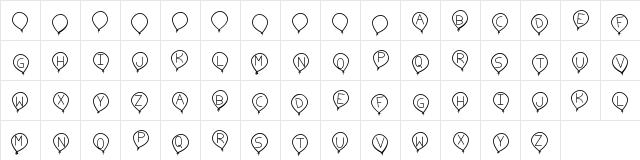
birthday balon tfb Regular
| Designer | kaiser zhar khan |
Design Context for birthday balon tfb Typeface
birthday balon tfb is a composed and adaptable typeface that performs quietly and consistently across a wide range of design contexts.